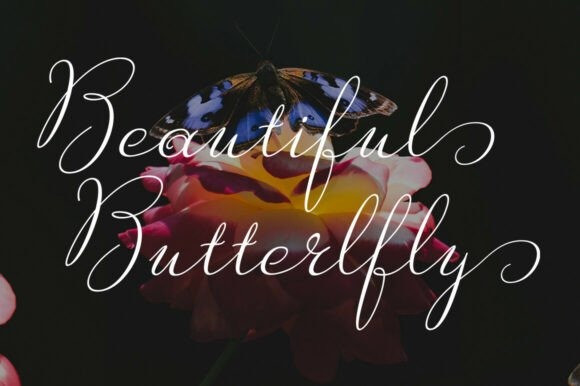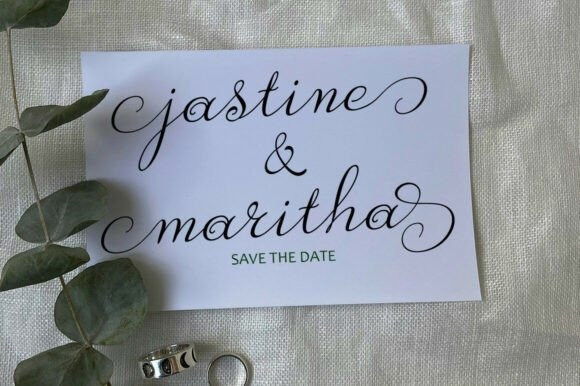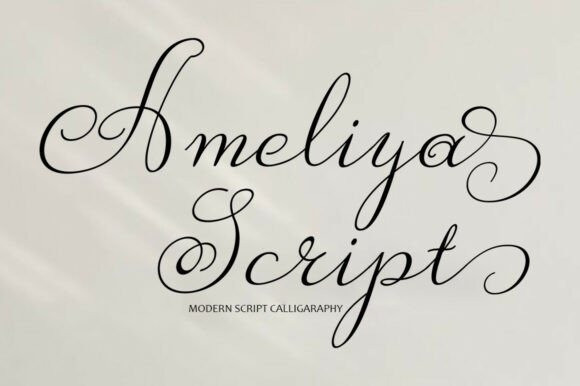
Ameliya Script Typeface
Ameliya Script Typeface is a new modern script font with an irregular baseline. Trendy and feminine style. Ameliya looks lovely on wedding invitations, thank you cards, quotes, greeting cards, logos, business cards and more. Perfect for using in ink or watercolour. Including initial and terminal letters, alternates and multiple language support.